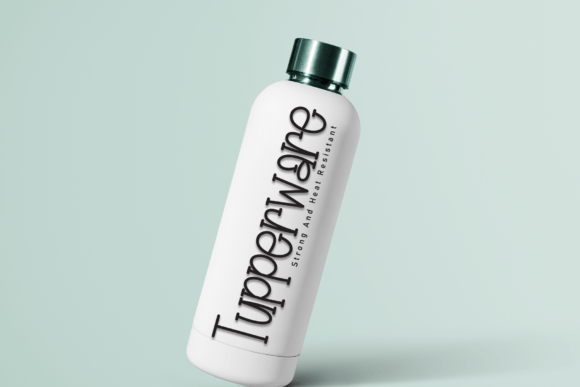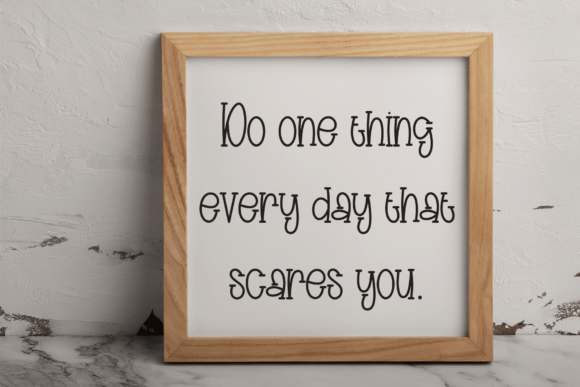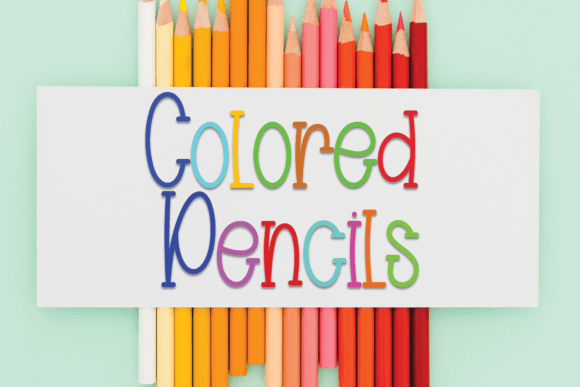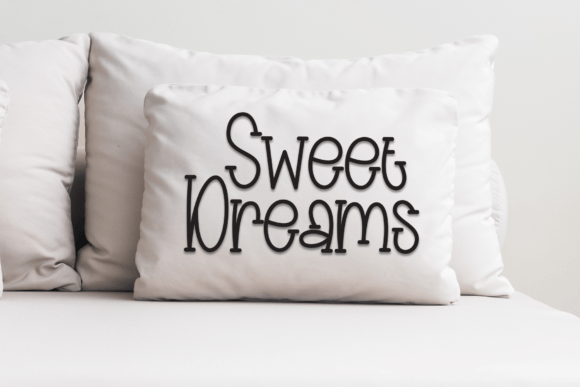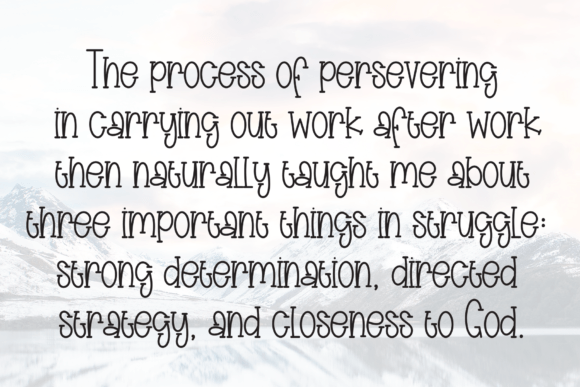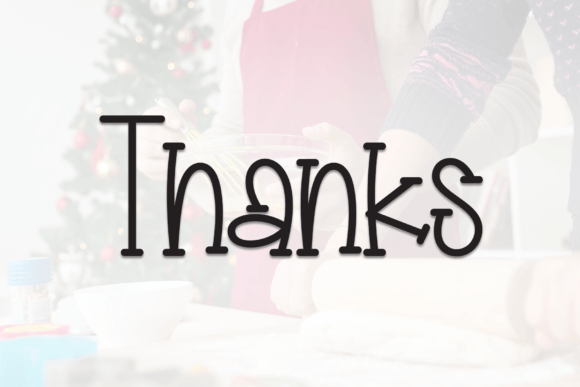
Spreading Holiday Cheer, One Font at a Time
As the holiday season approaches, designers and creatives alike often find themselves in a frenzy of festive preparations – decorating the tree, baking cookies, and planning the perfect holiday card. But amidst all the hustle and bustle, one crucial element can make or break the magic of your design: the right font. For those seeking a touch of warmth and whimsy, the Christmas Cooking Font is a treasure trove of inspiration.
This charming handwritten font, aptly named Christmas Cooking, is the perfect accompaniment to your holiday designs. Its natural, unique style makes it a versatile choice for a wide range of projects, limited only by your imagination. Whether you’re crafting a merry card, designing a festive website, or creating a mouth-watering cookbook, the Christmas Cooking Font is sure to add a dash of holiday cheer to your creations.
Christmas Cooking Font Key Features
- Font Styles: A collection of festive font styles, including bold, italic, and regular, perfect for adding a holiday touch to your designs.
- Character Set: Includes a wide range of characters, including uppercase and lowercase letters, numbers, and punctuation marks, as well as special holiday-themed characters.
- Size: The font is available in a single weight, making it easy to use in various design contexts without worrying about font matching issues.
- Unique Characteristics: Features a unique, hand-drawn design that evokes the feeling of traditional holiday cooking, making it perfect for adding a personal touch to your designs.
Designer Review: Christmas Cooking Font
First impressions of the Christmas Cooking Font are overwhelmingly festive and cheerful ✨. The font’s playful, handwritten feel instantly evokes the holiday season. I love how the font’s whimsical style is perfect for adding a touch of warmth and personality to festive content, such as recipes, gift tags, and holiday greeting cards.
However, I did notice a few limitations ⚠️. One of the main issues is the font’s inconsistent spacing. While it’s cute and casual, it can be a bit tricky to read, especially in longer blocks of text. Additionally, the font’s limited character set may not be suitable for professional or formal content.
Here are some key points to consider:
- Pros: Festive and playful, great for holiday-themed content, adds a touch of personality
- Cons: Inconsistent spacing, limited character set
- Target audience: Casual, creative projects, holiday-themed content
Overall, I think the Christmas Cooking Font is a fun and festive addition to any designer’s toolkit. While it may not be suitable for every project, it’s perfect for adding a touch of holiday cheer to your next festive design.
The Christmas Cooking Font is ideal for creating festive holiday designs, such as:
– Recipe cards and cookbooks
– Holiday menus and gift tags
– Social media graphics and advertisements
– Party invitations and decorations
To get the most out of the Christmas Cooking Font, try the following:
– Combine the font with festive graphics and images for a cohesive look.
– Experiment with different font sizes and styles to create visual interest.
– Use the font to create a consistent brand identity across multiple designs.